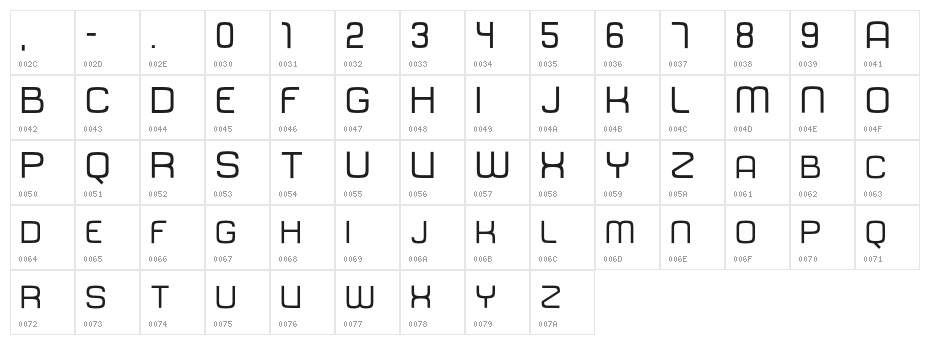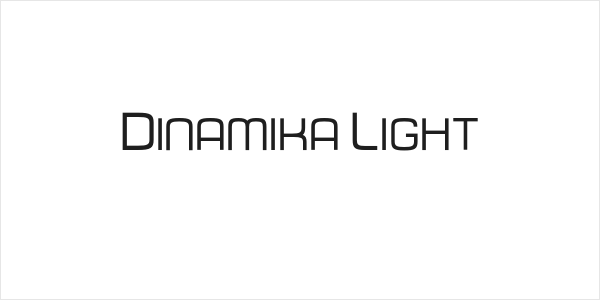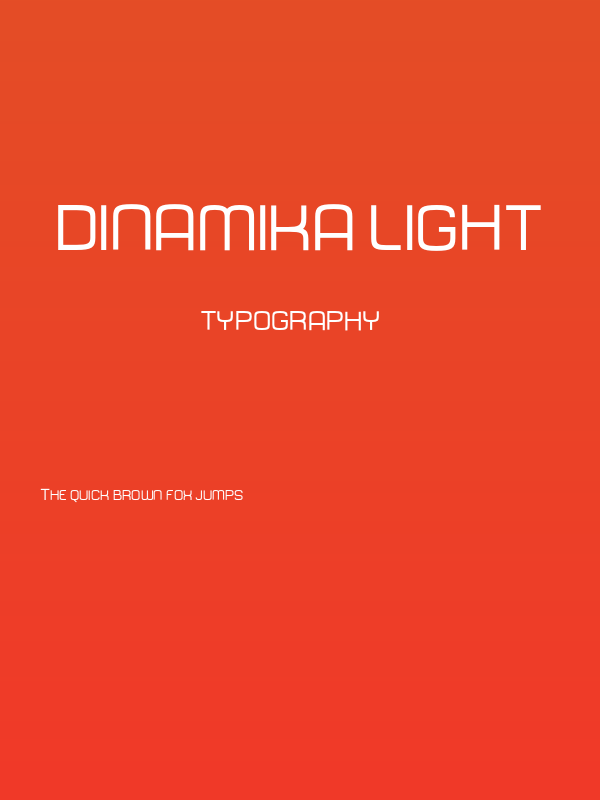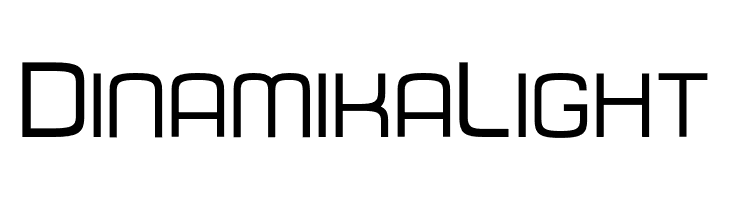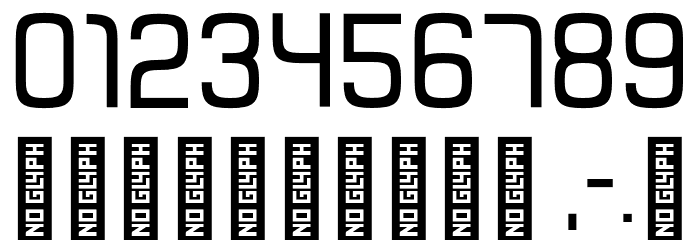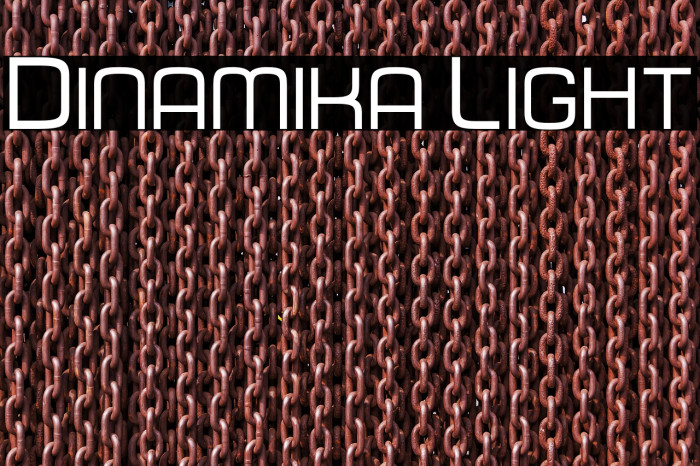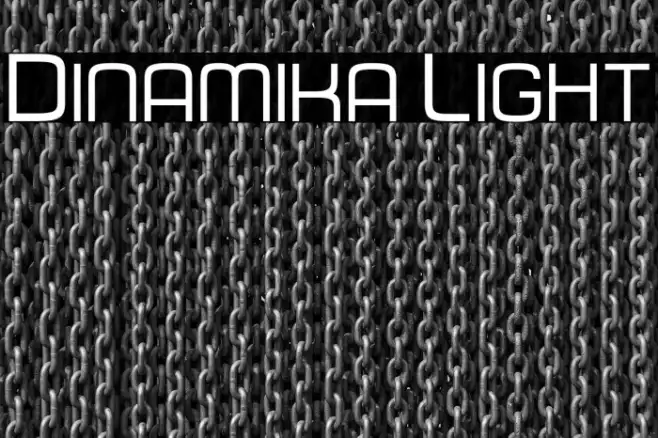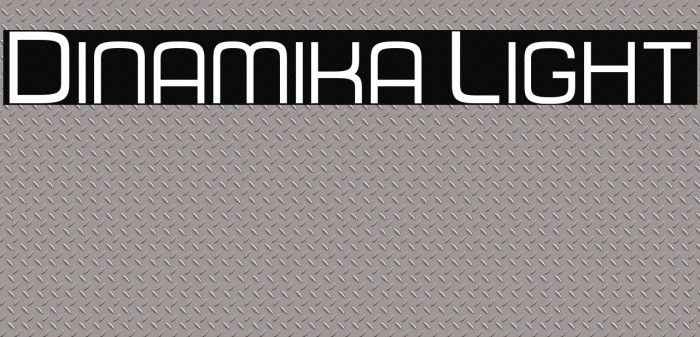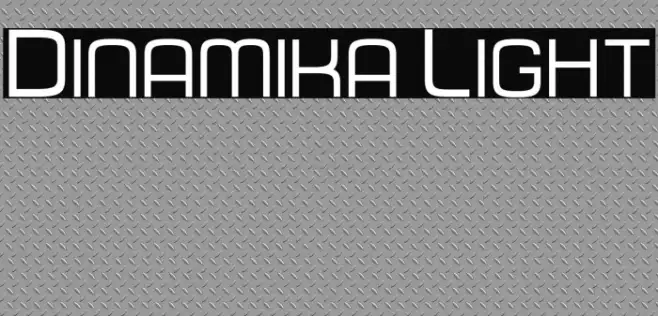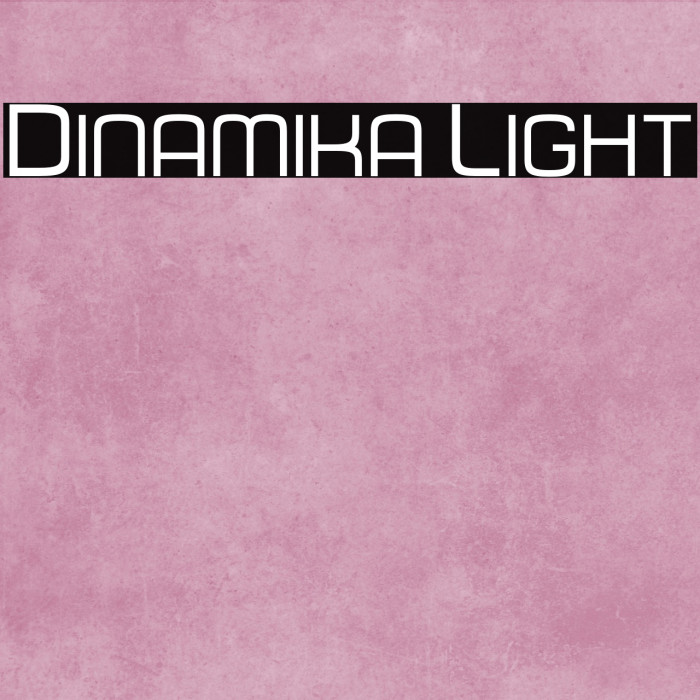
Dinamika Light Font
Dinamika Light Description
This font features a sleek, modern design with clean, geometric lines and a minimalist aesthetic. The characters are uniformly structured, providing a sense of balance and harmony. Uppercase and lowercase letters maintain a consistent height, contributing to a streamlined appearance. The numerals are clear and easy to read, with a uniform width that complements the overall design. The absence of serifs and the uniform stroke width give it a contemporary feel, making it suitable for digital and print media. The font's simplicity and clarity make it versatile for various applications.